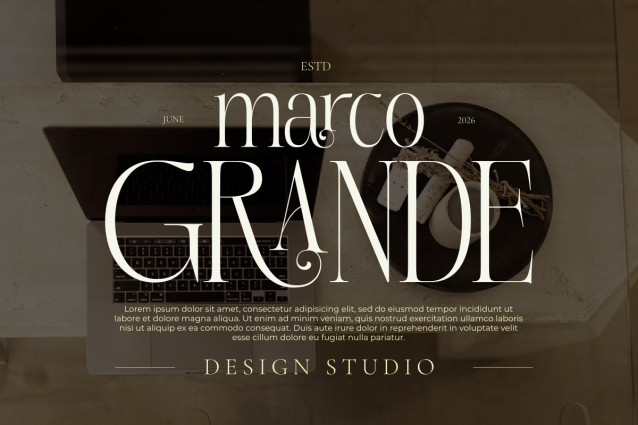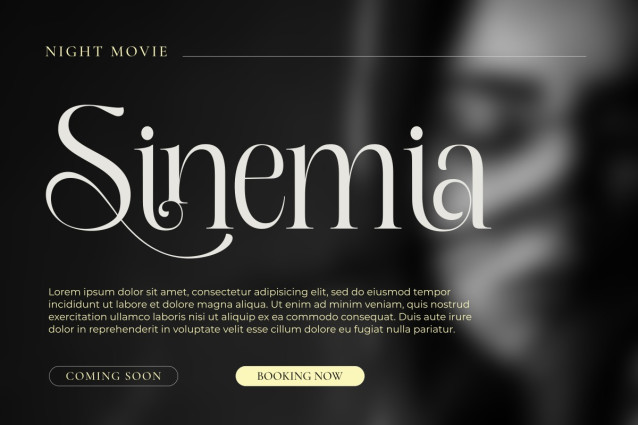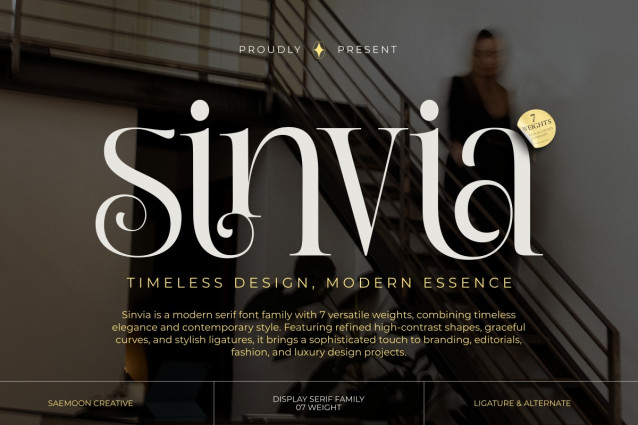
Sinvia Font
Sinvia Font is a sophisticated display serif family crafted to bring elegance, refinement, and versatility into a single typeface collection. Featuring 7 carefully designed weights, Sinvia combines classic serif beauty with modern high-contrast details, making it an excellent choice for premium branding and editorial design.
Its graceful curves, distinctive swashes, and stylish ligatures create a luxurious visual rhythm that instantly elevates any project. Whether you’re designing a fashion logo, magazine headline, product packaging, or social media campaign, Sinvia delivers a polished and memorable impression.
Designed for creatives who value both beauty and functionality, Sinvia offers the flexibility needed to create everything from delicate, sophisticated compositions to bold and impactful typography.